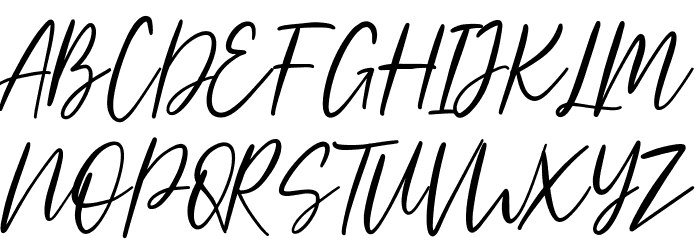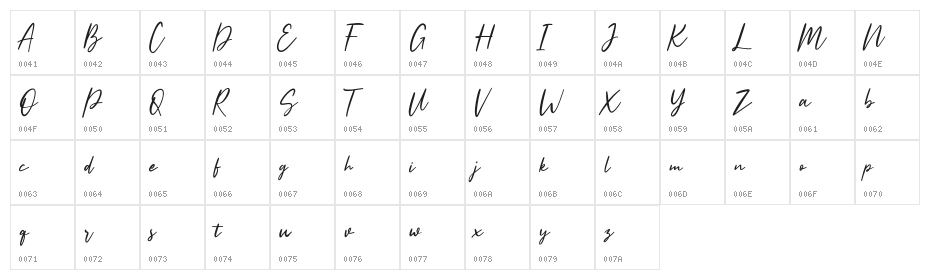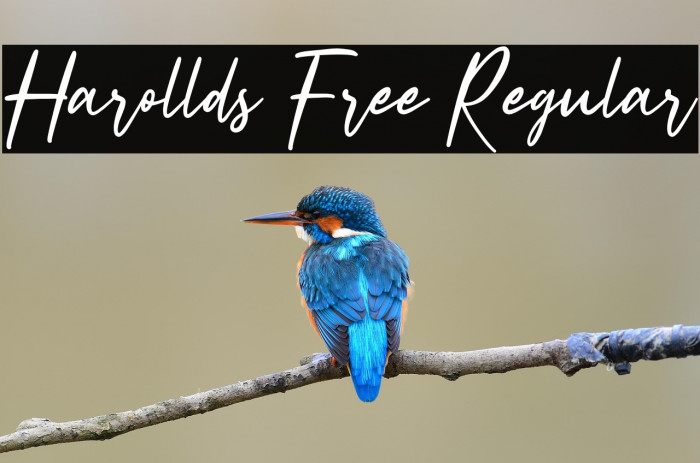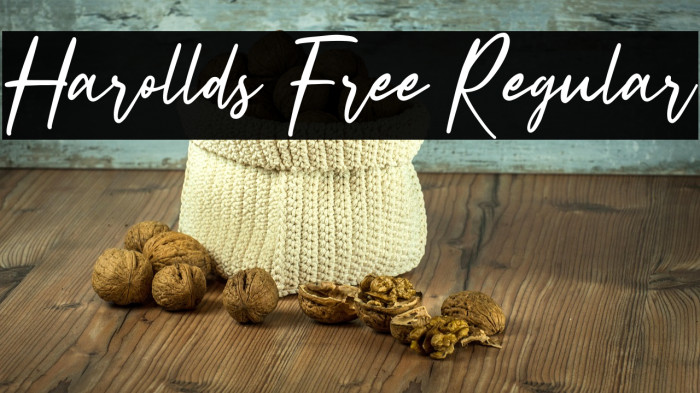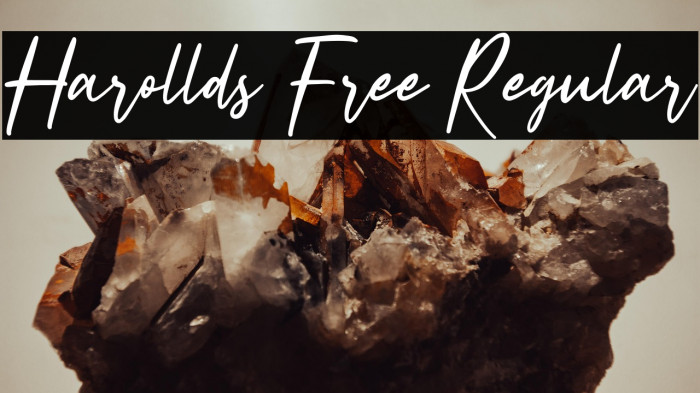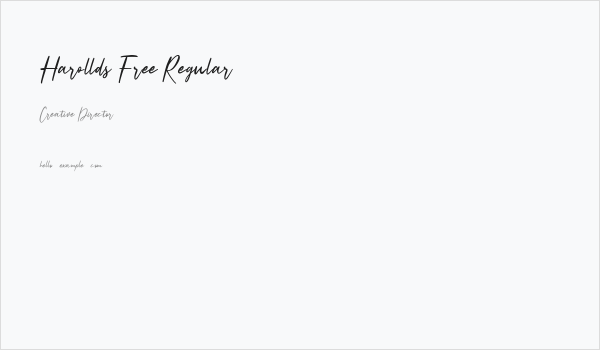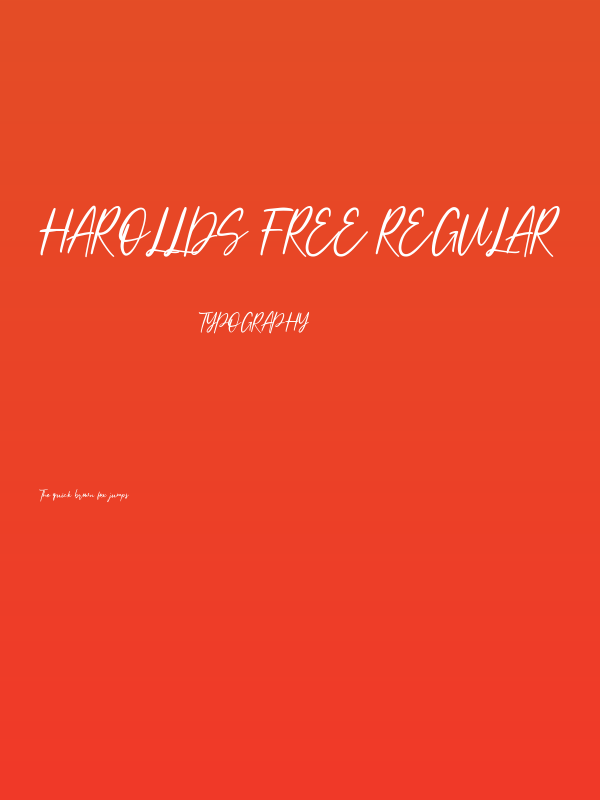
Harollds Free Regular Font
Harollds Free Regular Description
This font features a flowing, handwritten style with a modern and elegant touch. The letters are connected in a cursive manner, giving it a smooth and continuous appearance. The strokes are consistent in width, providing a balanced and harmonious look. The uppercase letters are bold and prominent, while the lowercase letters maintain a delicate and refined presence. This font exudes a sense of sophistication and creativity, making it suitable for a variety of design projects.
| Use Case | Logos, Invitations, Social Media Graphics |
| Proposed Projects | Ideal for wedding invitations, branding, social media graphics, and personal stationery. |